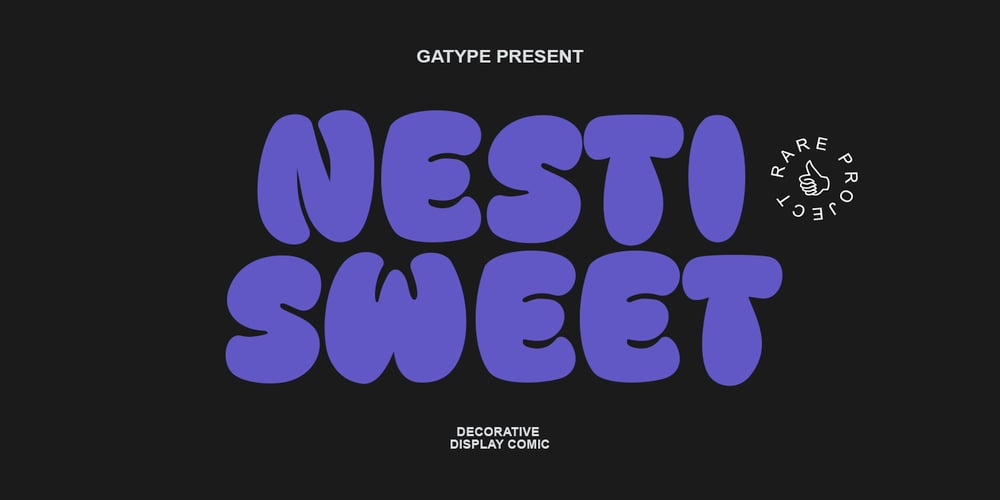
Nesti Sweet
Nesti Sweet font
Nesti Sweet Font Family was designed by khaidir and published by Gatype. Nesti Sweet contains 1 styles and family package options. Nasti Sweet is a round bubble display font, a very unique trendy font with a combination of modern character bindings, and I think this product suits the teaser display theme in every headline design, business cards, leaflets, magazines, children’s events, and brand screen printing.Come on, take a look and be happy to hear the review. If you have suggestions about this product, please let your work environment know whether this product is good for them.Thank you so much for everything!!